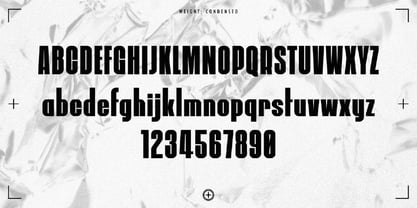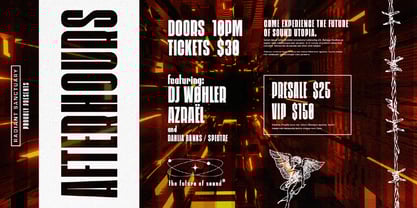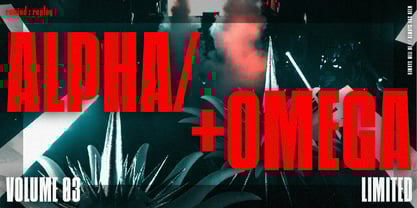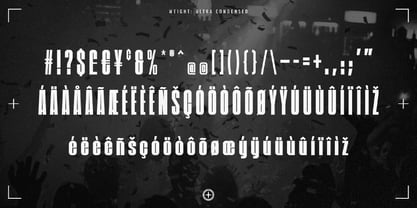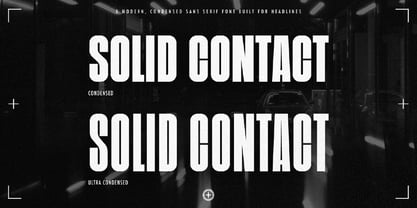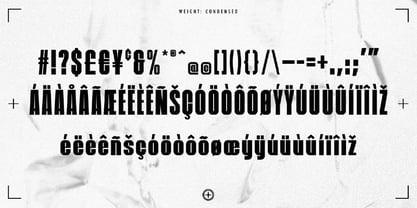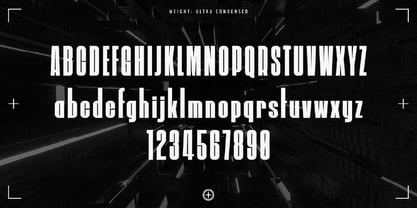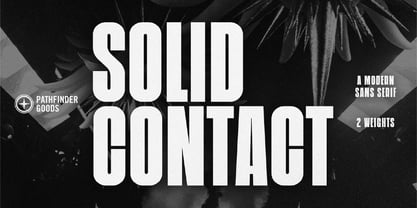
Solid Contact
The Solid Contact Font Family was designed by Christian Ramirez and published by Pathfinder Goods. Solid Contact contains 2 styles and family package options. More about this family
Solid Contact – A modern, condensed sans serif font built for headlines. It includes: Uppercase Lowercase Numbers Currency Symbols Glyphs Special Characters This tall, sturdy, display font comes in 2 weights: Condensed and Ultra Condensed. It’s best used for headlines and vertical design applications. Although it’s dense and very tall, this bold headline font is easily legible even when small. Follow along on Instagram for more fun products! @pathfinder_goods